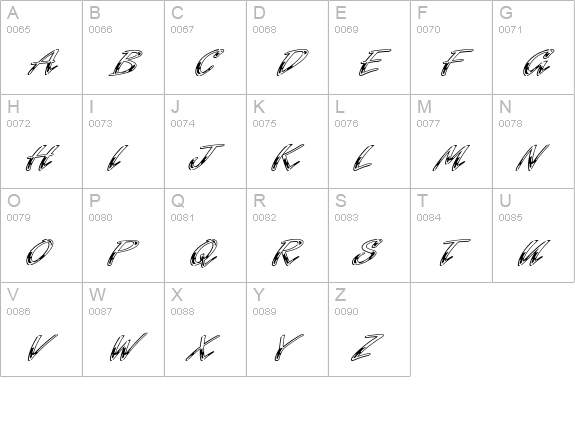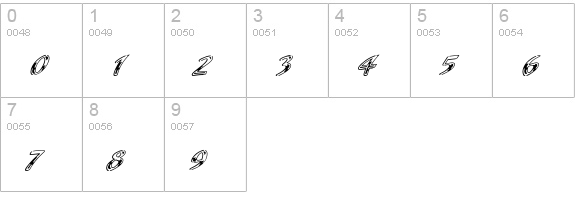
Laser Chrome Std font is a sleek and modern typeface that exudes a sense of sophistication and elegance. Its clean lines and sharp edges make it perfect for projects that require a touch of professionalism and refinement. This font features a unique laser-like chrome effect that adds a futuristic and eye-catching element to any design. Whether you're creating a logo, a website, or a brochure, Laser Chrome Std font will make your text stand out and grab attention. The best part? Laser Chrome Std font is completely free! That's right, you can download this incredible font at FontsMarket.com without spending a dime. It's the perfect solution for designers and creatives on a budget who still want high-quality typography. With its extensive character set, Laser Chrome Std font is versatile and can be used for a wide range of projects. It includes uppercase and lowercase letters, numbers, punctuation marks, and special characters, allowing you to create visually stunning designs with ease. So why wait? Head over to FontsMarket.com and get your hands on Laser Chrome Std font today. With its sleek design, futuristic flair, and the fact that it's freely available, this font is a must-have for any designer looking to make a bold statement.